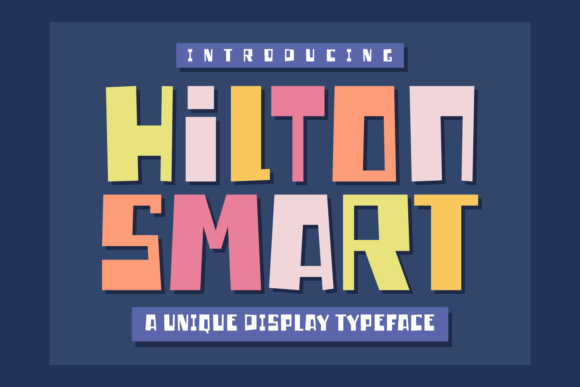
Introducing Hilton Smart Font, the ultimate font style for movie posters that will instantly captivate your audience! Created by the talented Dito from 7NTypes, this boxy and cheerful display font is designed to bring your text to life in the most captivating way possible.
With Hilton Smart Font, you have the power to create stunning invitations that will leave a lasting impression on your guests. Whether it's a wedding, birthday party, or any special occasion, this font will add a touch of elegance and uniqueness to your invites. Imagine the excitement on their faces when they receive an invitation that stands out from the rest!
Not only is Hilton Smart Font perfect for invitations, but it's also ideal for creating eye-catching banners and posters. Whether you're promoting a movie, a concert, or any event, this font will grab attention and make a statement. Its bold and playful design will ensure that your message stands out from the crowd, leaving a lasting impact on viewers.
In the business world, standing out is crucial, and Hilton Smart Font will help you achieve just that. Design professional business cards that reflect your brand's personality and professionalism. Let the font do the talking and leave a memorable impression on potential clients and partners. With Hilton Smart Font, your business cards will be impossible to ignore.
Marketing materials play a vital role in promoting your products or services, and Hilton Smart Font is here to elevate your designs. From brochures to flyers, this font will add a touch of creativity and charm, making your marketing materials truly unforgettable. Stand out from your competitors and entice customers with stunning visuals and captivating typography.
The possibilities are endless with Hilton Smart Font. It's a versatile tool that will unlock your creativity and help you create visually striking designs. Let your imagination run wild and explore the endless opportunities this font offers.